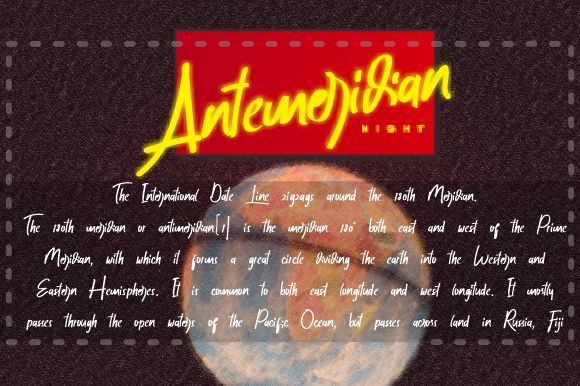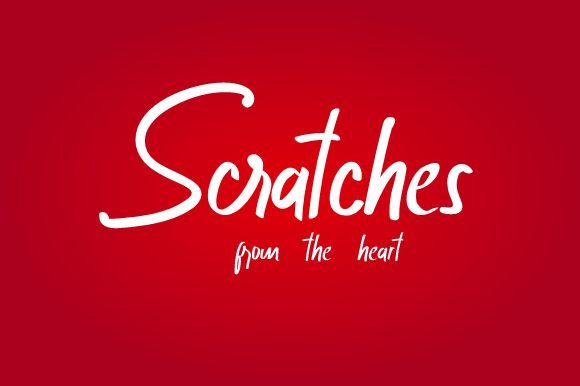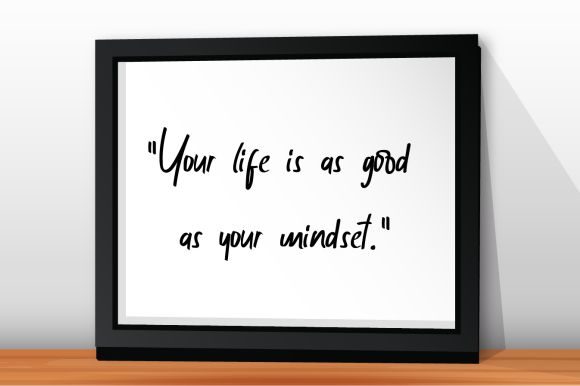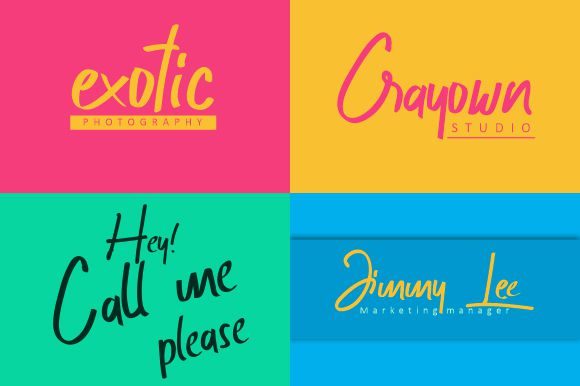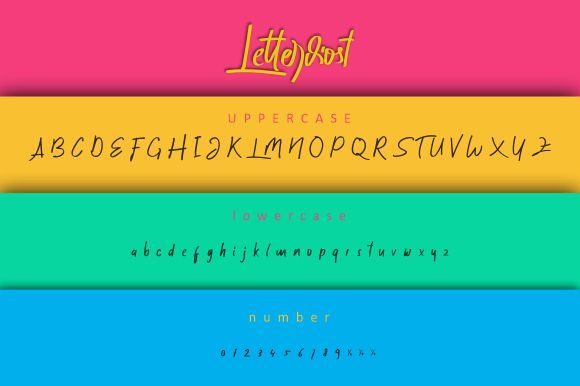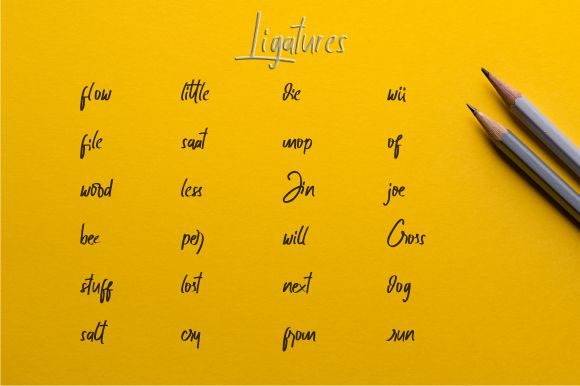
Introduction to Letterdiost Font
Remember the moment when you first picked up a pen and started doodling on a blank sheet of paper? The freedom to create something entirely new and unique is what drives designers to push their boundaries. For those who crave a high-quality, handwritten font that exudes elegance and sophistication, Letterdiost Font is an absolute treasure. This versatile font seamlessly blends classic calligraphic influences with a fresh, contemporary touch, making it the perfect design resource for any creative project.
As a valuable addition to any designer’s toolkit, Letterdiost Font is available for a free download, allowing you to experiment with its many uses, from crafting beautiful letterheads and titles to creating stunning stationery. Its transparent background and refined lines make it an ideal choice for designers who want to add a touch of sophistication to their work. Whether you’re working on a personal project or a commercial venture, Letterdiost Font is sure to elevate your designs to the next level.
Key Features of Letterdiost Font
- High-quality, professional design ideal for creative projects and presentations.
- Comes with a transparent background, allowing for easy customization and integration with various designs.
- Features a unique, elegant design that is perfect for use in logos, branding, and other visual identity projects.
- Perfect for use in digital and print projects, including business cards, brochures, and posters.
Honest Review: Letterdiost Font
As a designer, I’m always on the lookout for high-quality design resources that can elevate my creative projects. Recently, I came across the Letterdiost Font, which offers a free download option. I was excited to test it out and see if it lives up to its promise.
What works well: ✨ The Letterdiost Font is incredibly versatile, with a range of styles and weights that make it perfect for a variety of design applications. I particularly appreciate its transparent background, which makes it easy to combine with other design elements. The font is also highly legible, making it a great choice for body text and headings.
What doesn’t work well: ⚠️ While the Letterdiost Font is free to download, the quality is somewhat inconsistent. Some of the styles and weights feel a bit rough around the edges, and the font doesn’t quite have the polish of some more premium options. Additionally, the font’s licensing terms are a bit unclear, which can be a concern for designers who want to use the font in commercial projects.
Overall impression: While the Letterdiost Font has some limitations, it’s still a solid design resource that can be useful for certain projects. If you’re looking for a high-quality font that’s easy to use and customize, you may want to consider other options. However, if you’re working on a budget or need a quick solution for a creative project, the Letterdiost Font could be worth a look.
- Highly legible
- Range of styles and weights
Tips for Getting the Most Out of Letterdiost Font
Experiment with different font sizes, colors, and combinations to create a unique and eye-catching design. Use the font in combination with other design elements, such as images and graphics, to add depth and interest to your design. The transparent background of the font makes it easy to use and edit.
Use the Letterdiost Font for creating logos, graphics, and other visual elements for your business or personal projects. The font is also great for creating presentations, documents, and other written content. The high quality and free download of the font make it a great resource for your design needs.
Q: Does the Letterdiost Font have a transparent background?
Yes, the Letterdiost Font has a transparent background, making it ideal for use on images with complex backgrounds. This feature allows you to easily composite the font with other design elements.